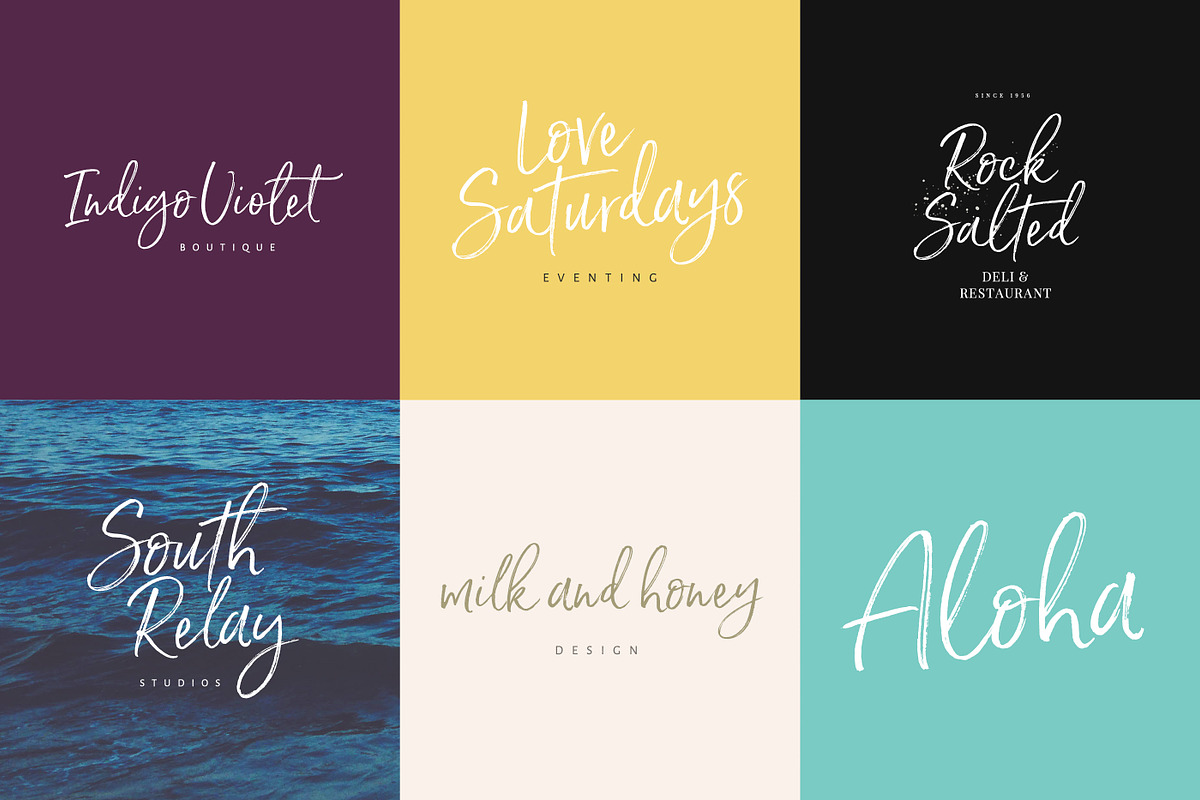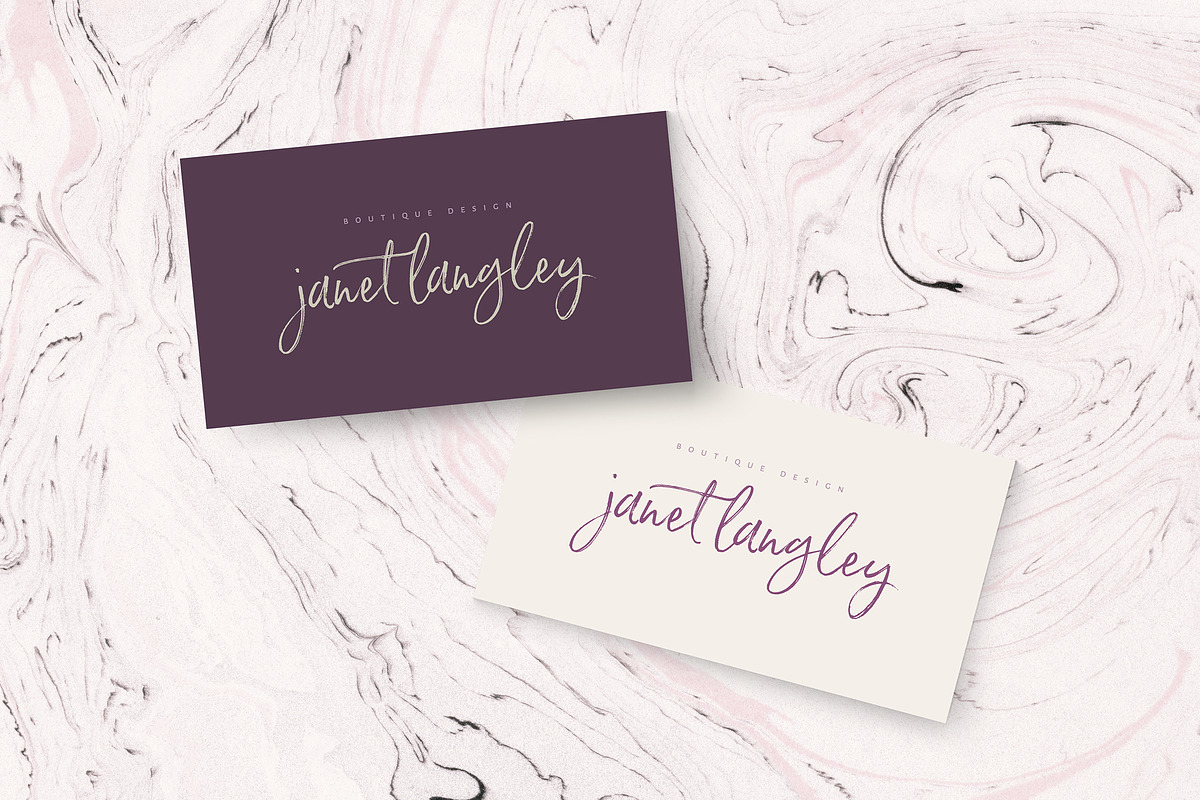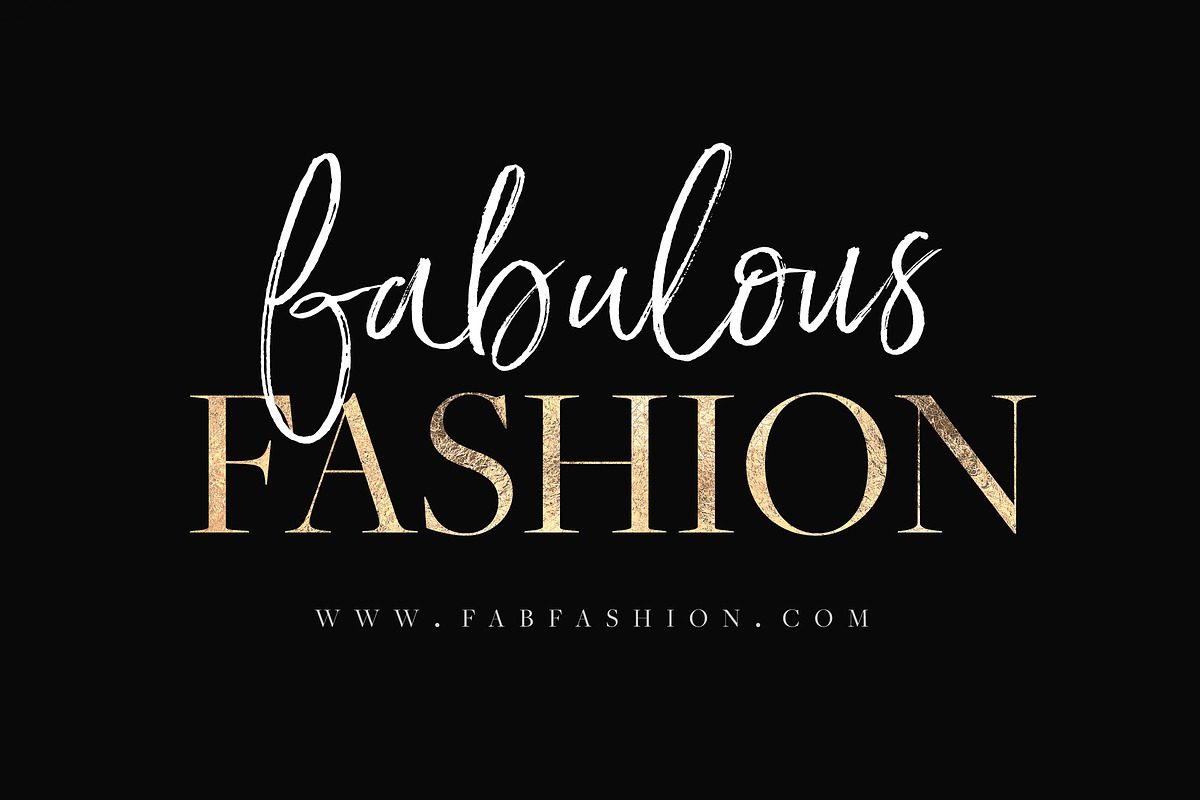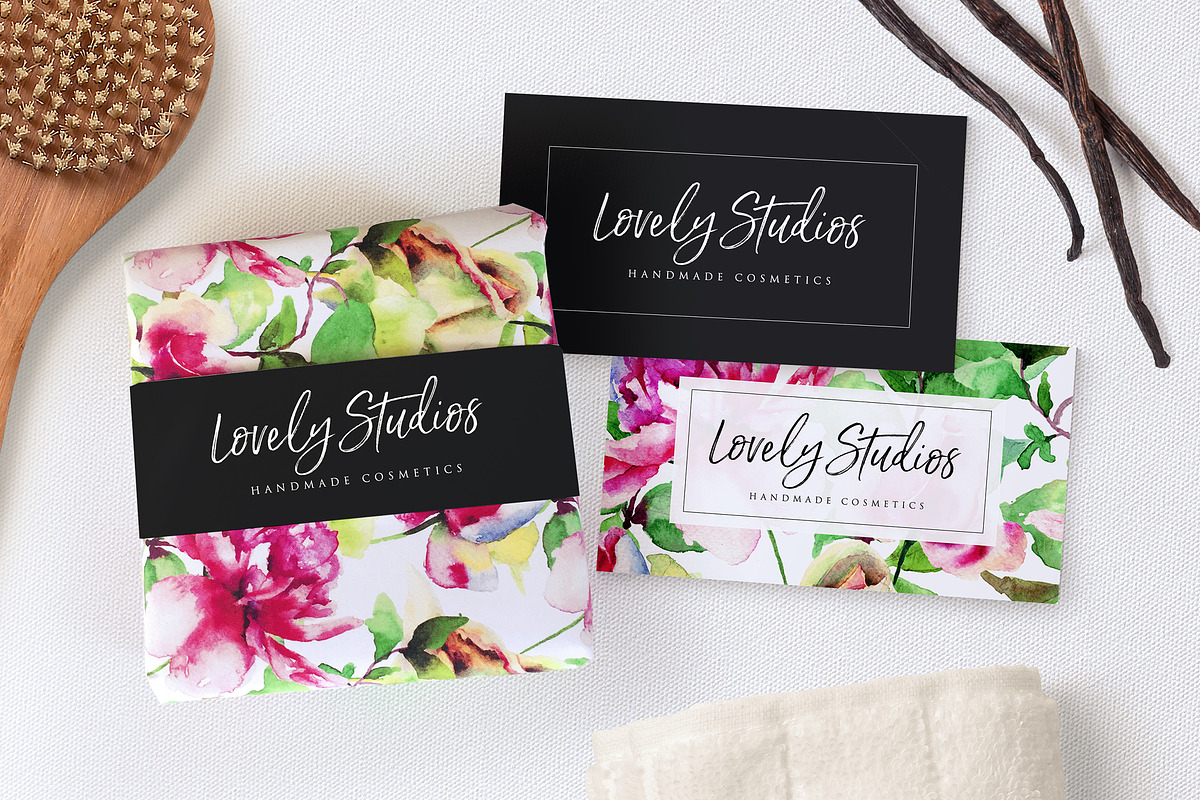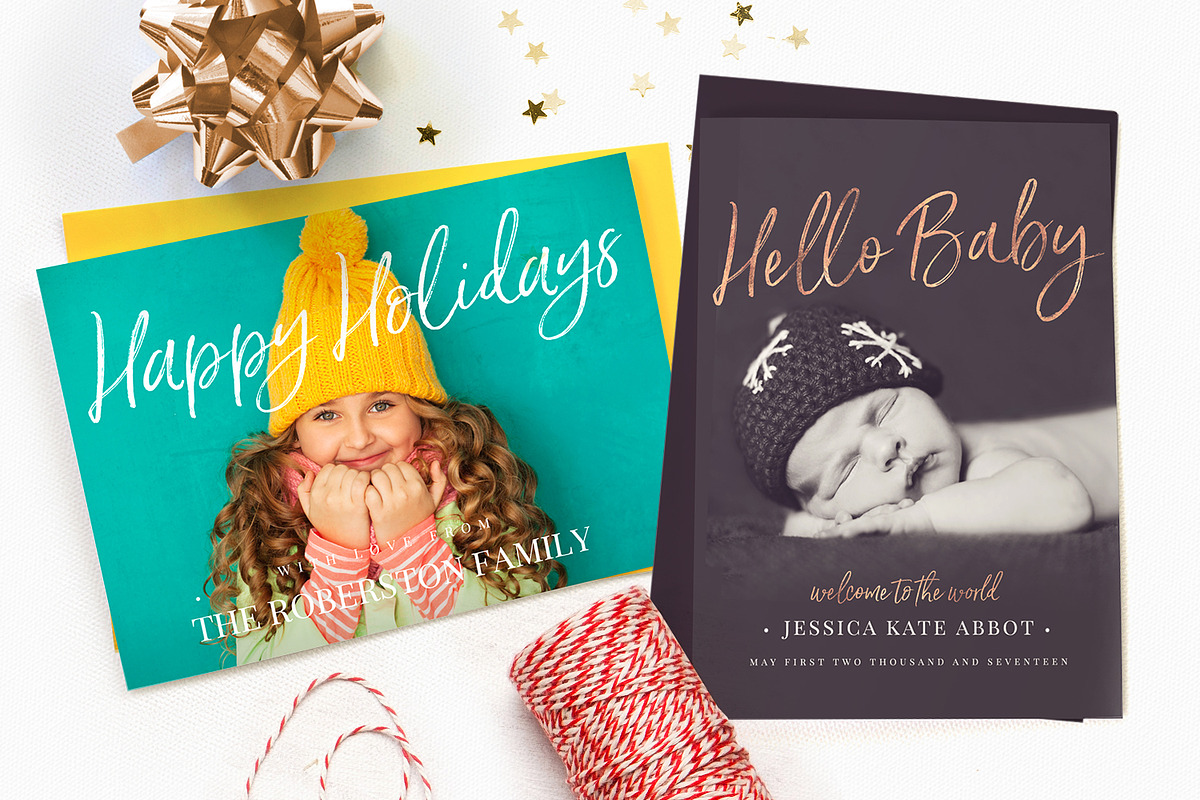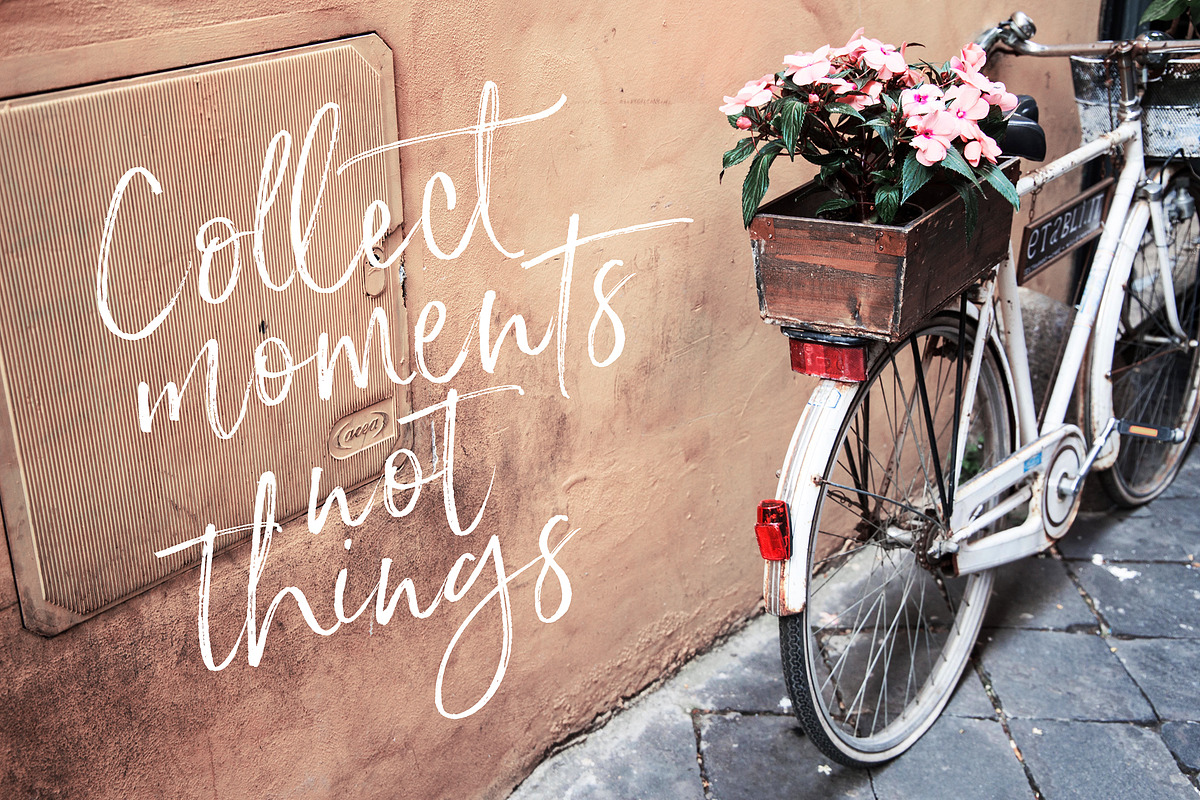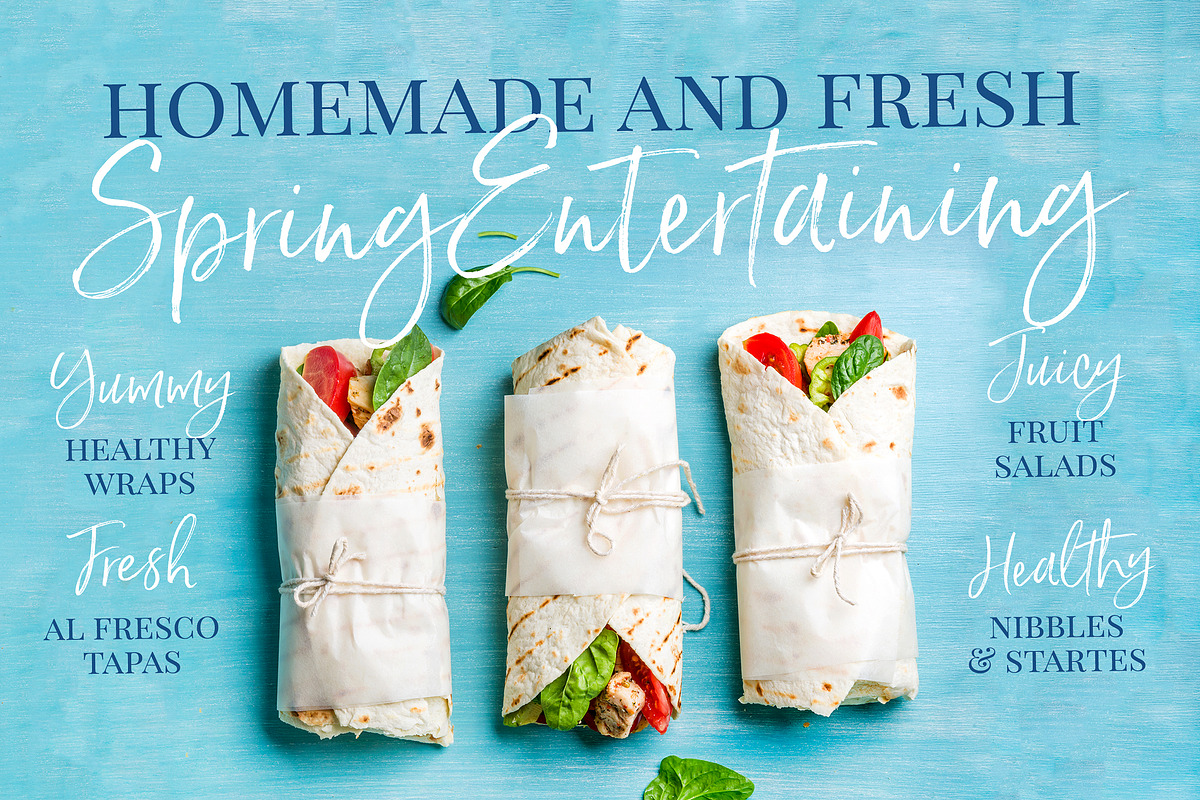
Saturday Script Brush Font
Saturday Script Brush Font by Nicky Laatz is a font selected for branding, posters, packaging, typography.
- It has 2 sets of extra alternate lowercase letters, which allow you to create different feels for different projects.
- Whether you need "flaunty & loud" or "soft & romantic" theres a letter combination to get the look you want :) EXTRA ALTERNATE LETTERS: To m
Why Saturday Script Brush Font is worth a look
Saturday Script Brush Font by Nicky Laatz fits naturally into Branding, posters, packaging, typography.